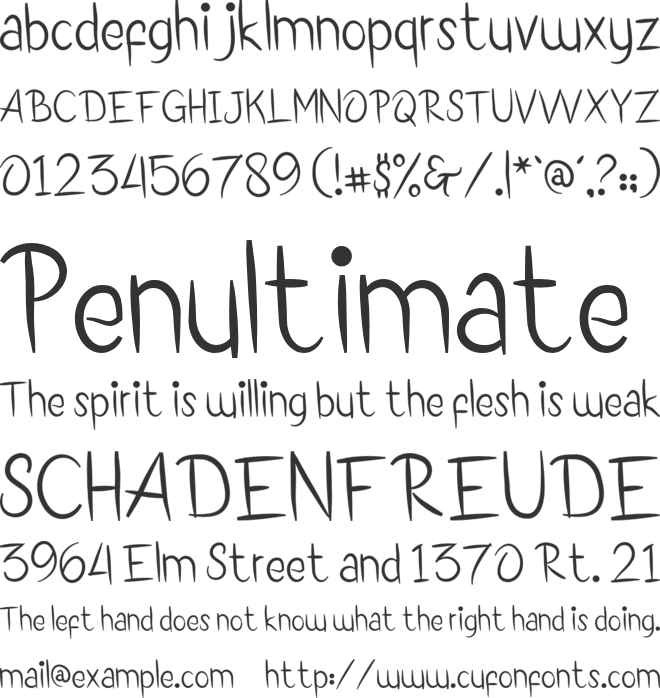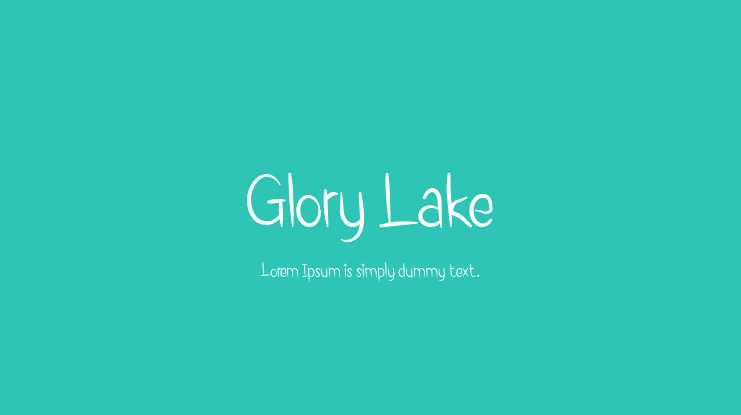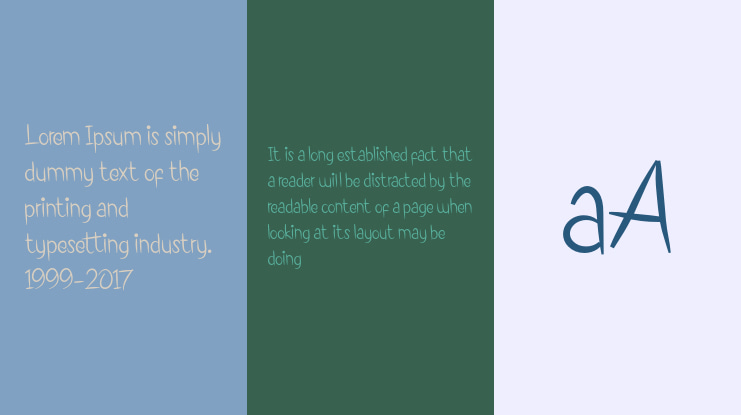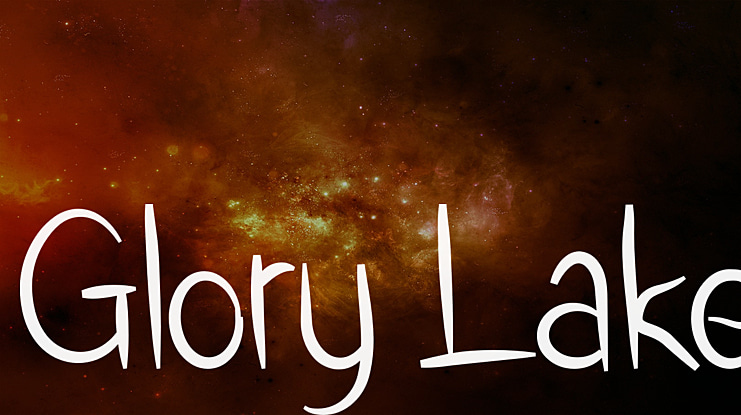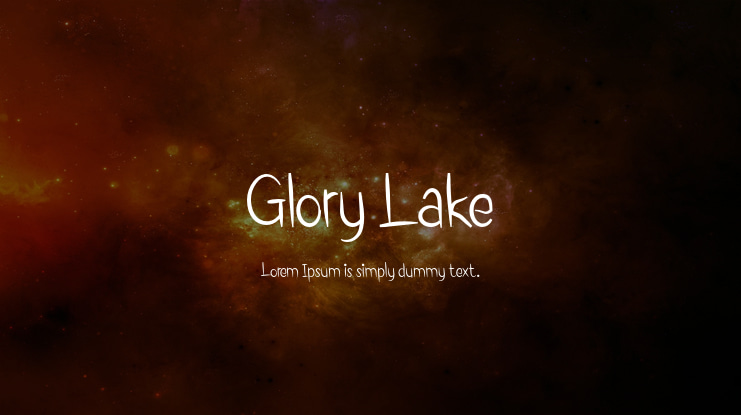
Glory Lake Font
Introducing our new release, Glory Lake Modern Handwritten Typeface. This typeset is perfect for brand logo, invitations, greeting card, or even any kind of project. With multilingual feature and style variations, this typeface would further enhance the aestethical aspect of your work.Click our website :https://displaytypefont.com/product/glory-lake/